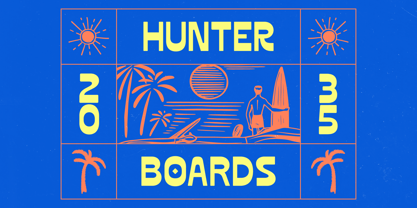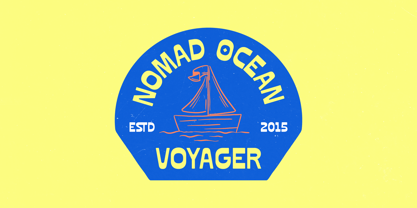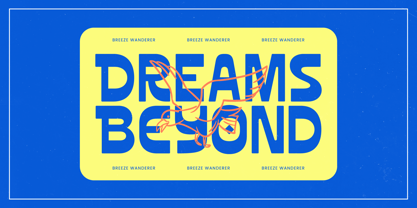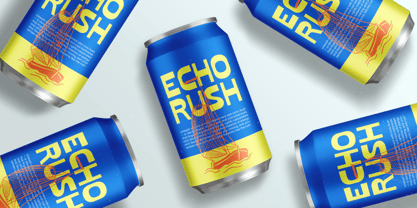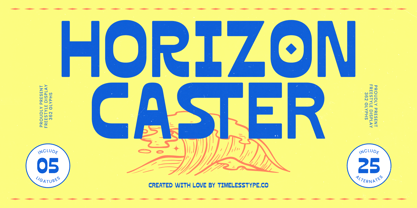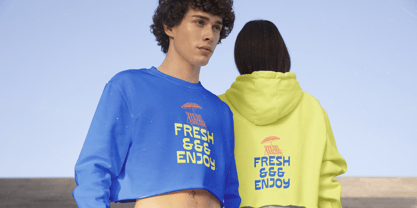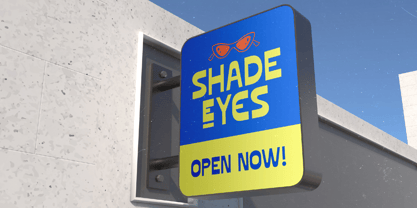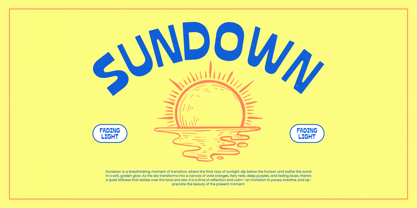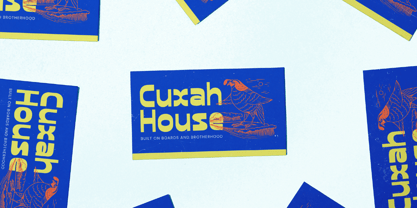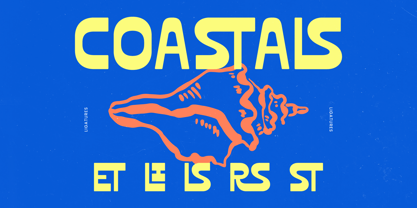
Horizon Caster
Horizon Caster - Freestyle Display Font , from Timelesstype , Suitable for any projects such as: logos, branding projects, homeware designs, product packaging, mugs, quotes, posters, shopping bags, t-shirts, book covers, name card, invitation cards, greeting cards, label, photography, watermark, special events, and all your other luxury and beautiful projects that need a Luxury Serif taste.